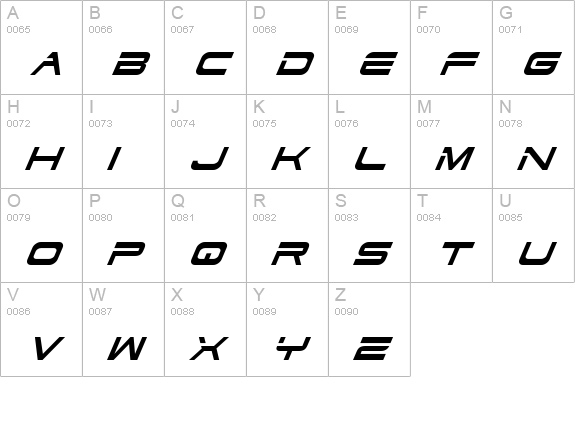
Dodger Condensed Italic is a distinctive, condensed-width, italic variant in the Dodger typeface family \xE2\x80\x94 well suited to design and typography projects.
Introducing Dodger Condensed Italic font - a stylish and sophisticated typeface designed to make your designs stand out. With its sleek and modern appearance, Dodger Condensed Italic is perfect for adding a touch of elegance to any project. The italicized version of Dodger Condensed font brings a sense of movement and fluidity to your text, making it ideal for headlines, logos, and branding. What's even better is that Dodger Condensed Italic font is available for free download at FontsMarket.com. Yes, you read that right - you can easily access this premium font without any cost. So why wait? Elevate your designs with Dodger Condensed Italic font today and make a lasting impression with its unique charm and versatility.